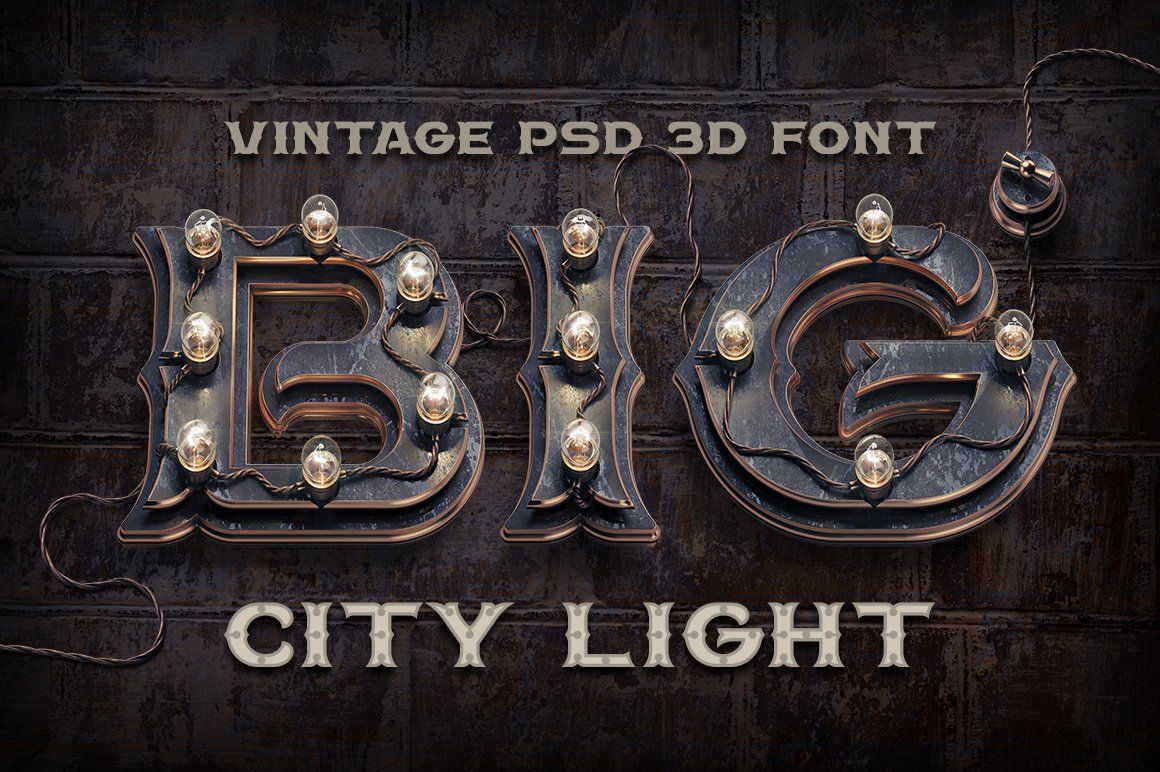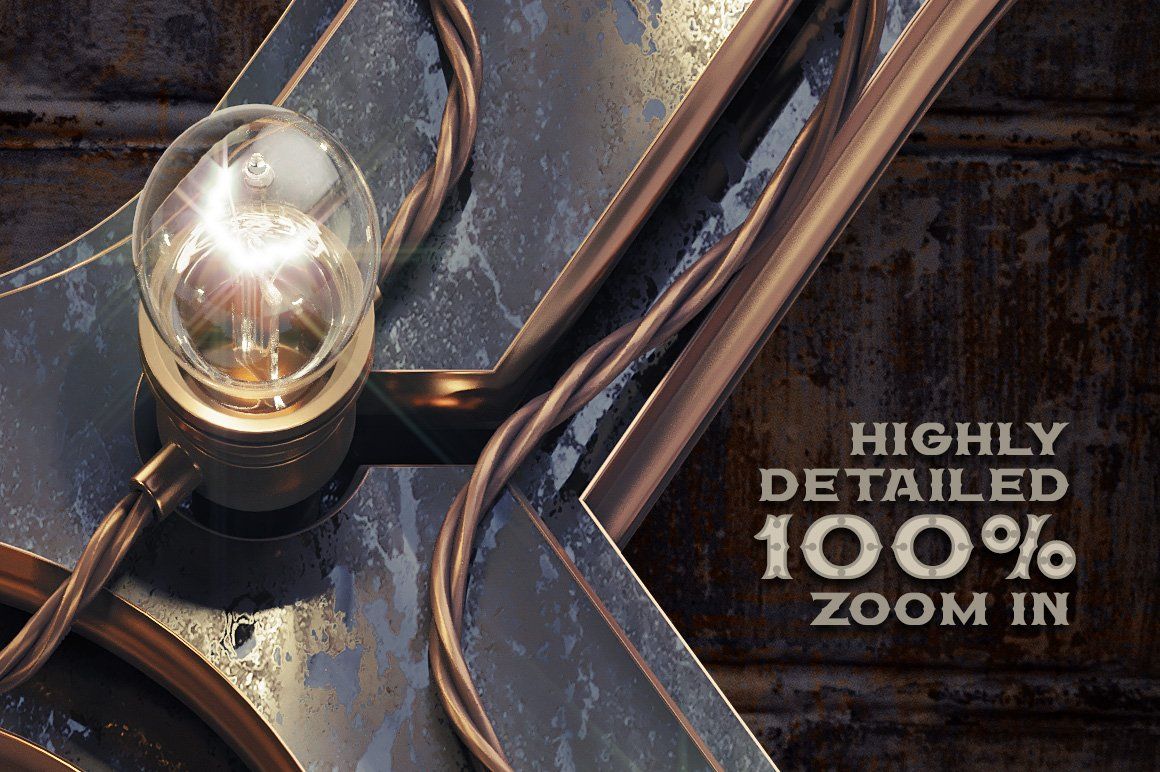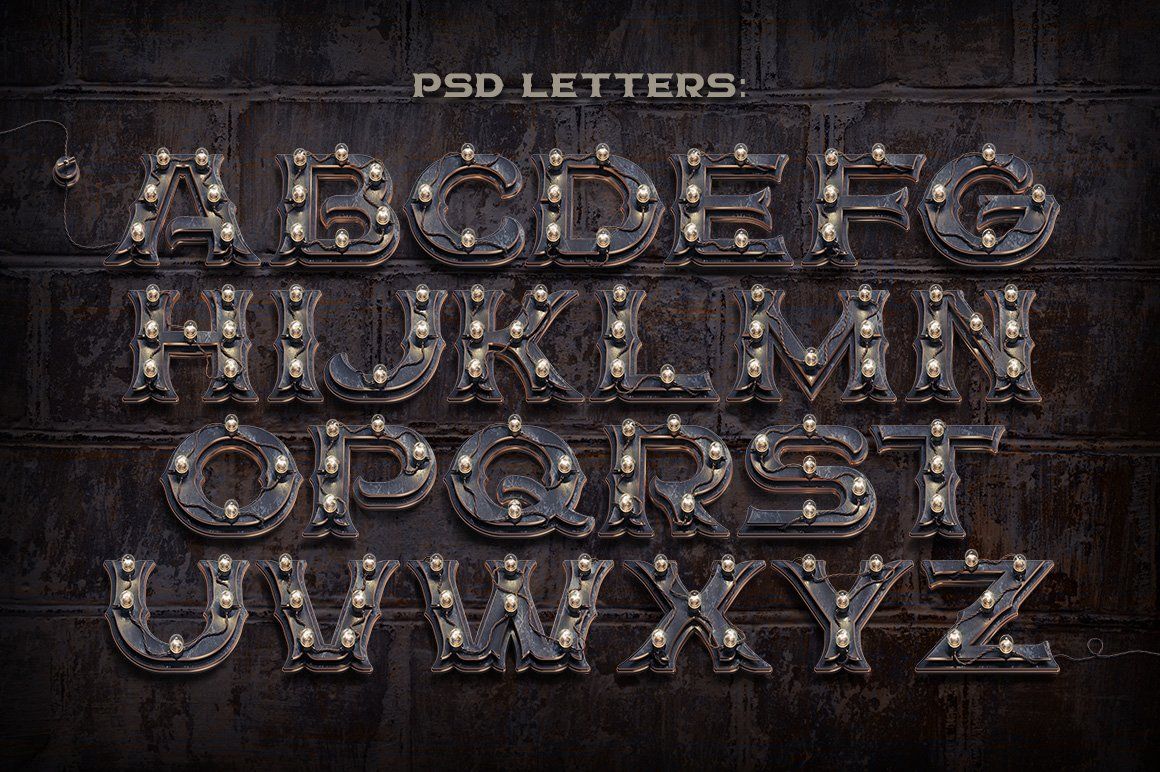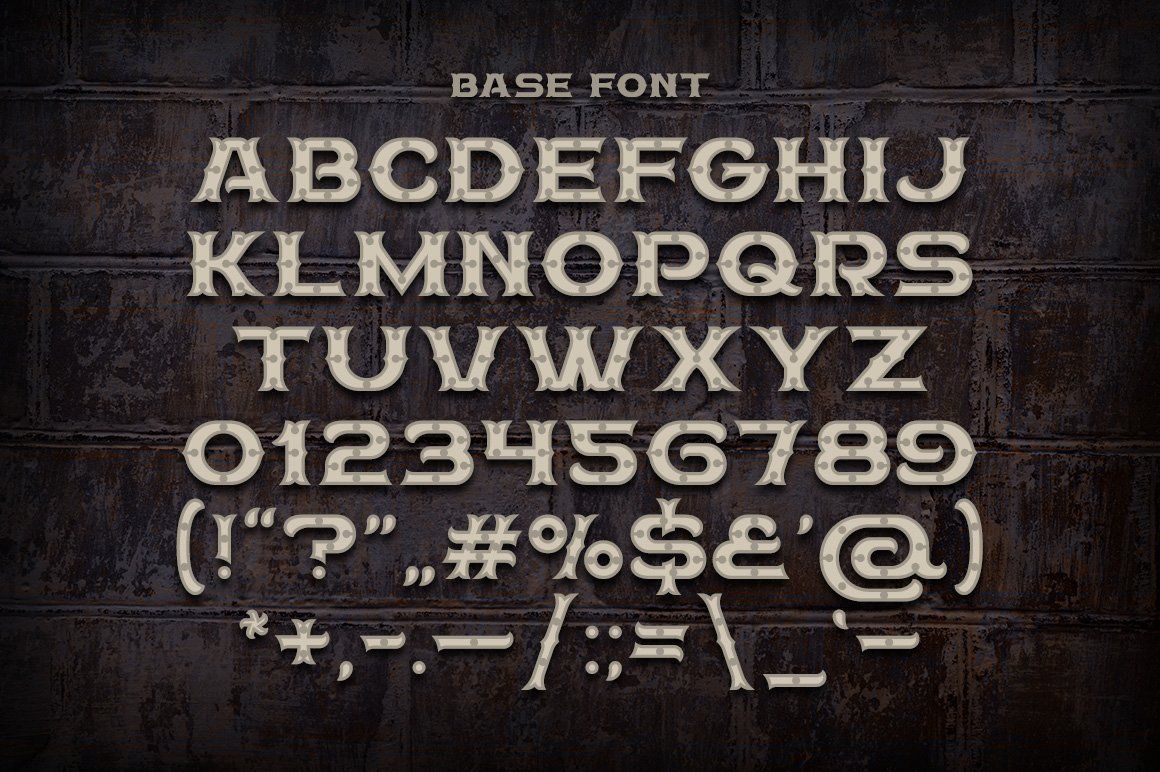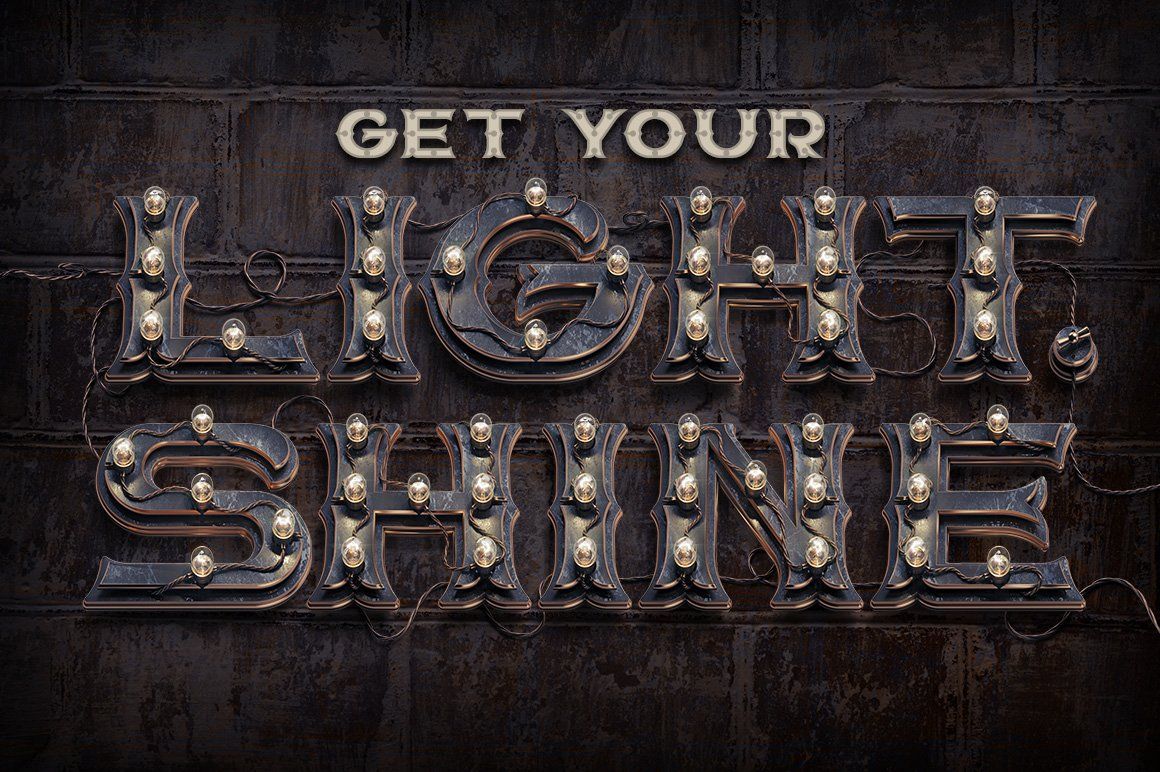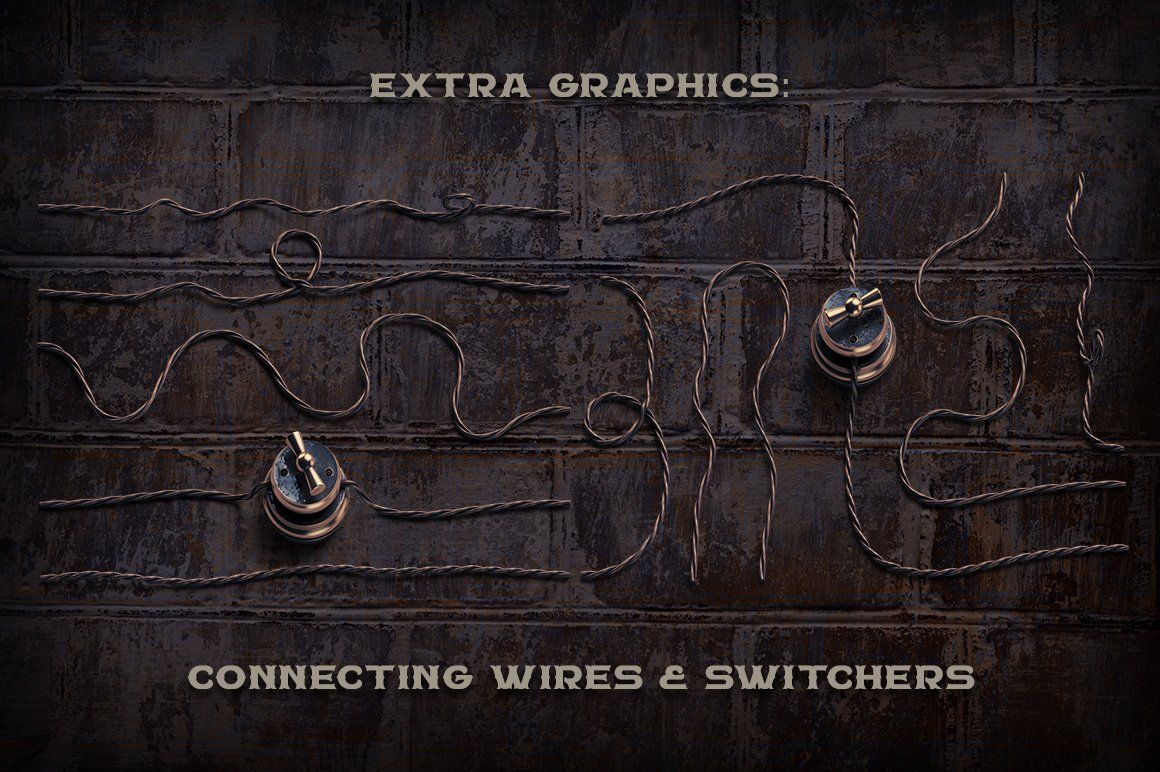
Introducing a vintage font named BIG City Light. It's a highly detailed steampunk style 3d rendered letters. You will get a PSD files with transparent background and separate shadow layer for each letter. Also an OTF & TTF base font is included.
• Extra graphics (wires, switchers, texture)
Note: 3d renders are available only for 26 English letters. Numbers and punctuation are available in base font (all available characters you can see on 3nd & 4th screenshots)